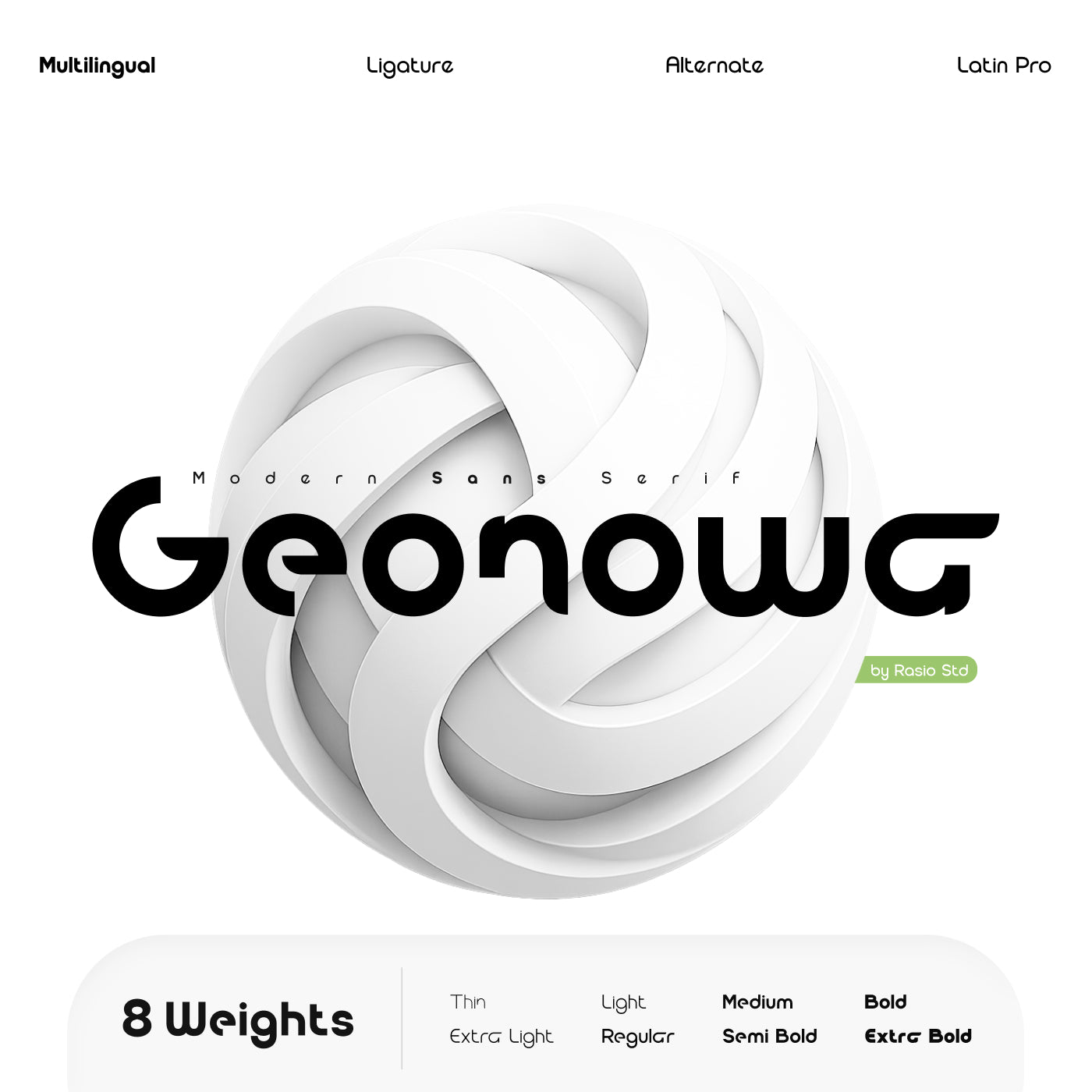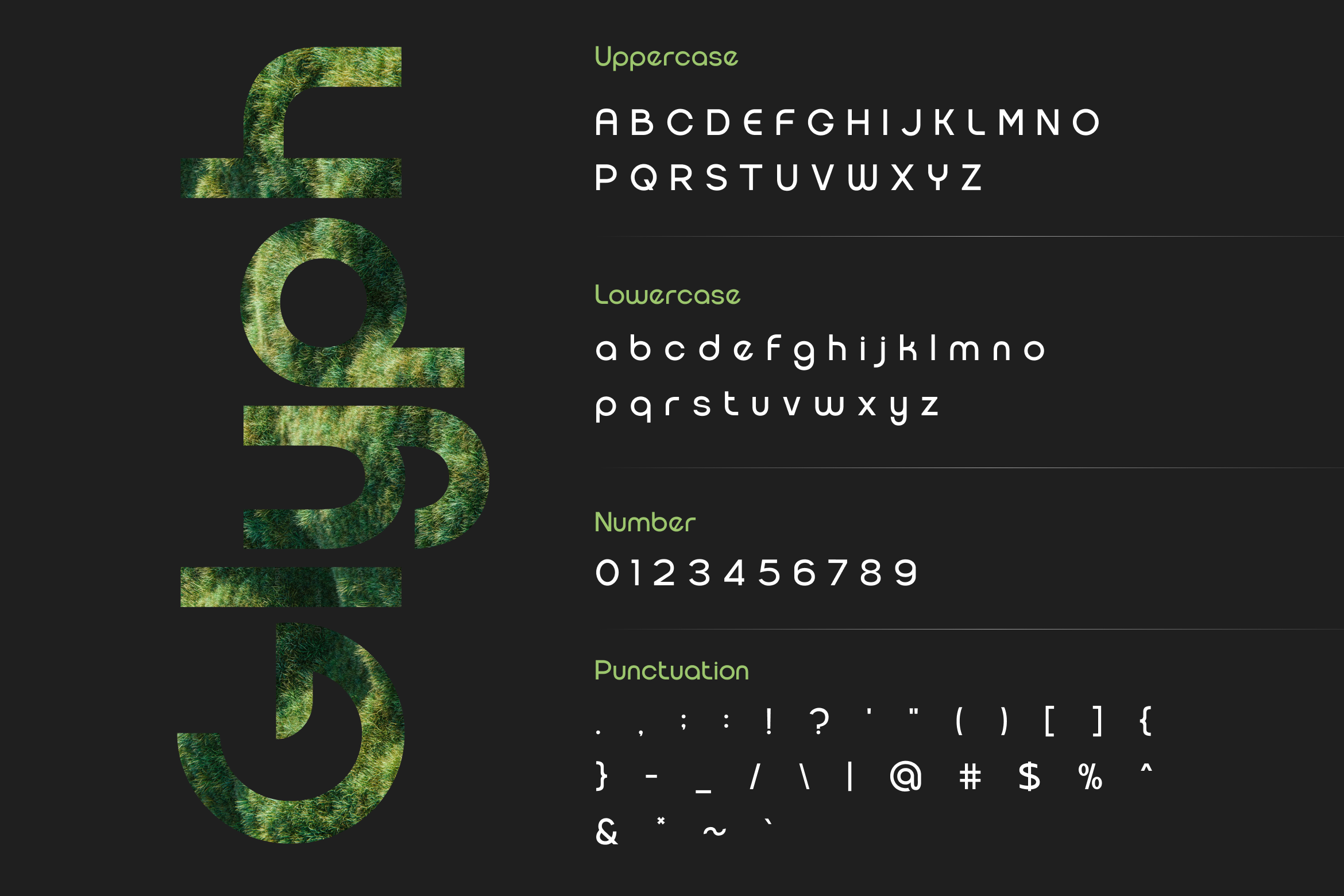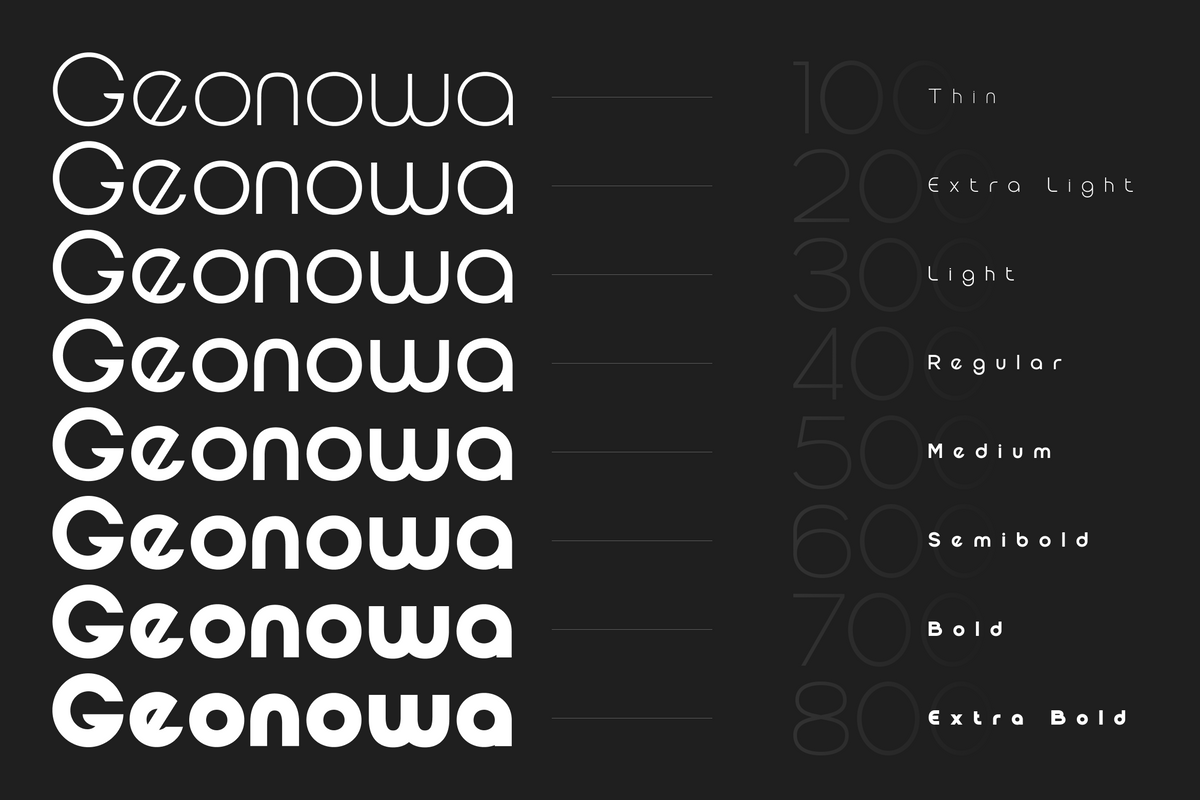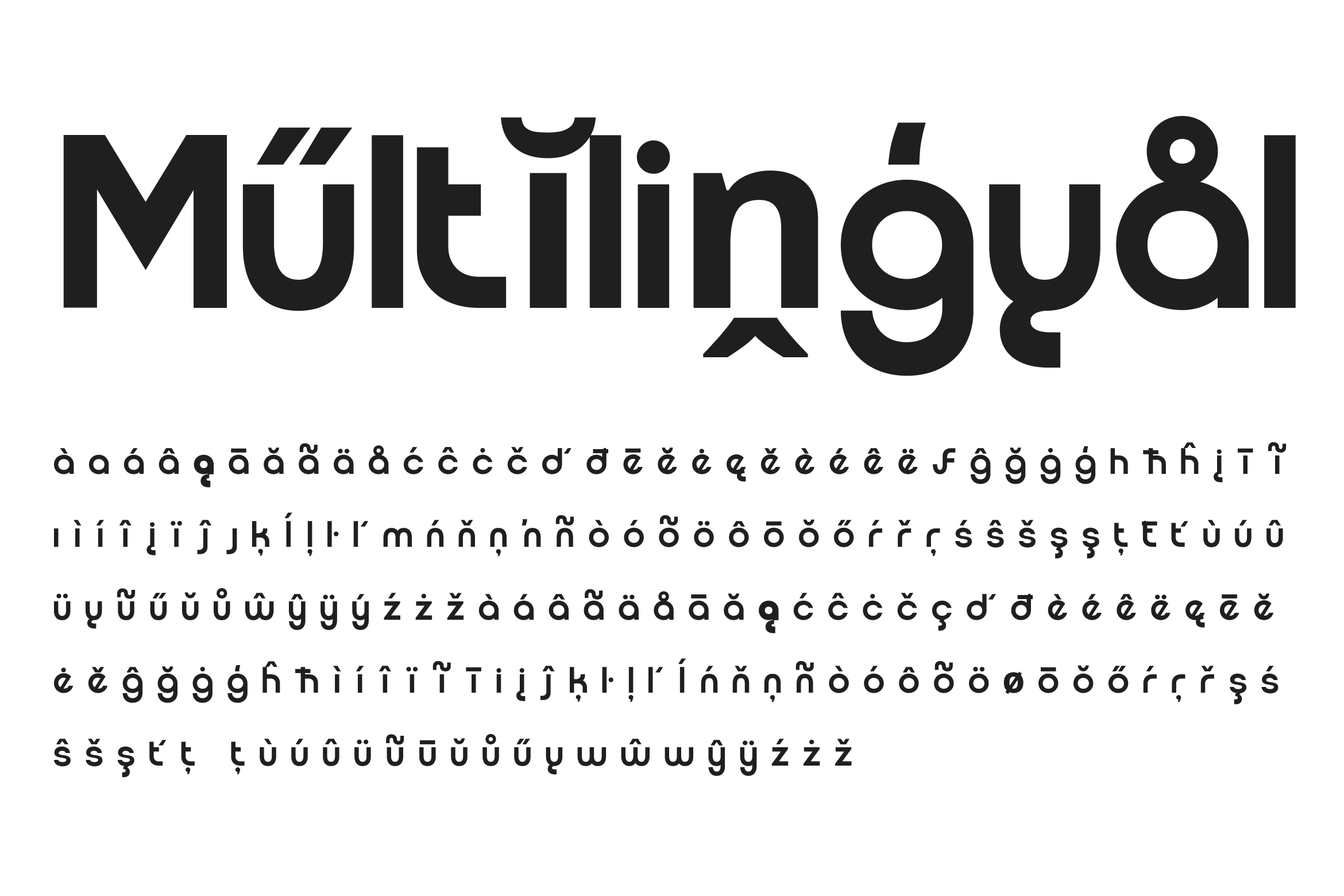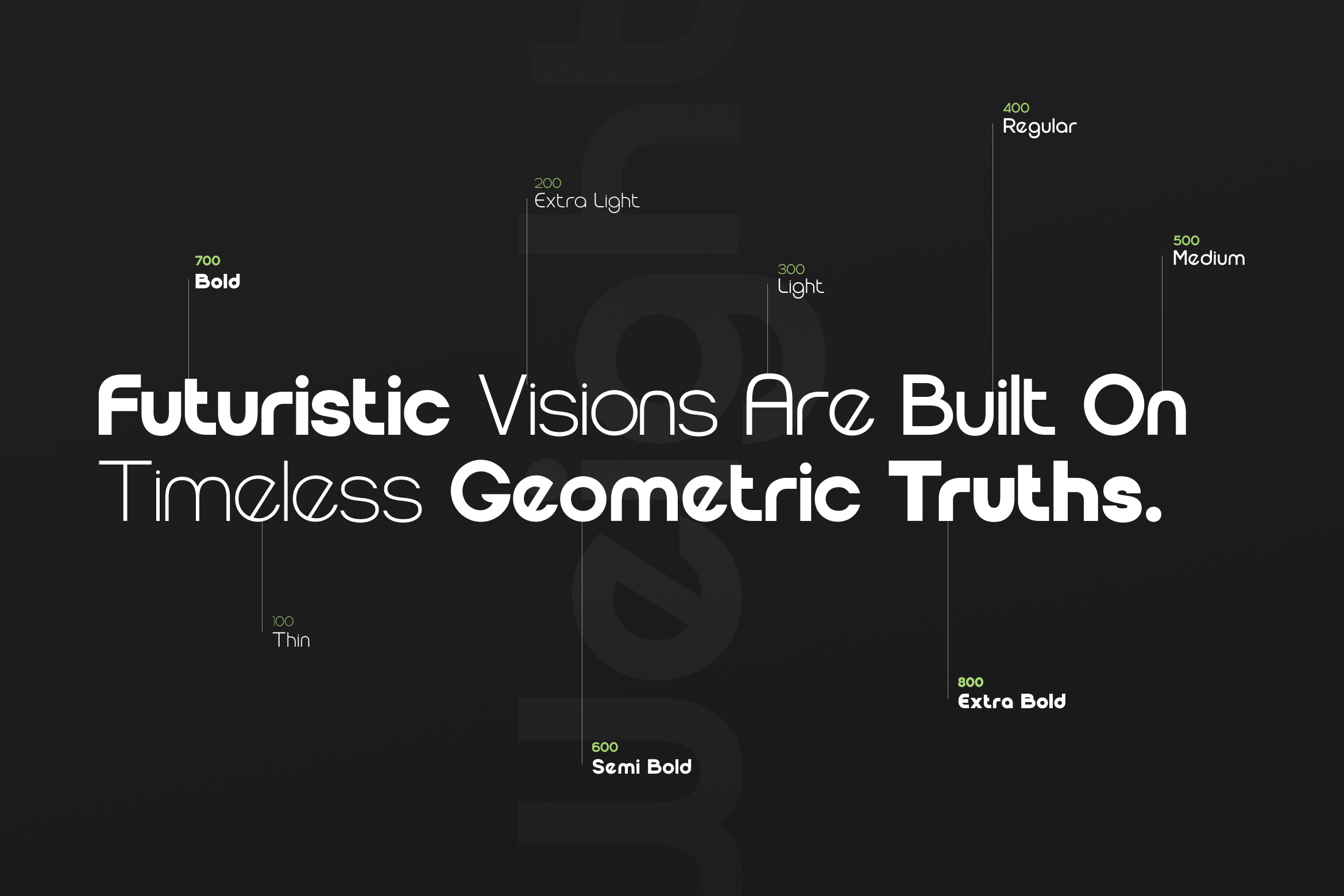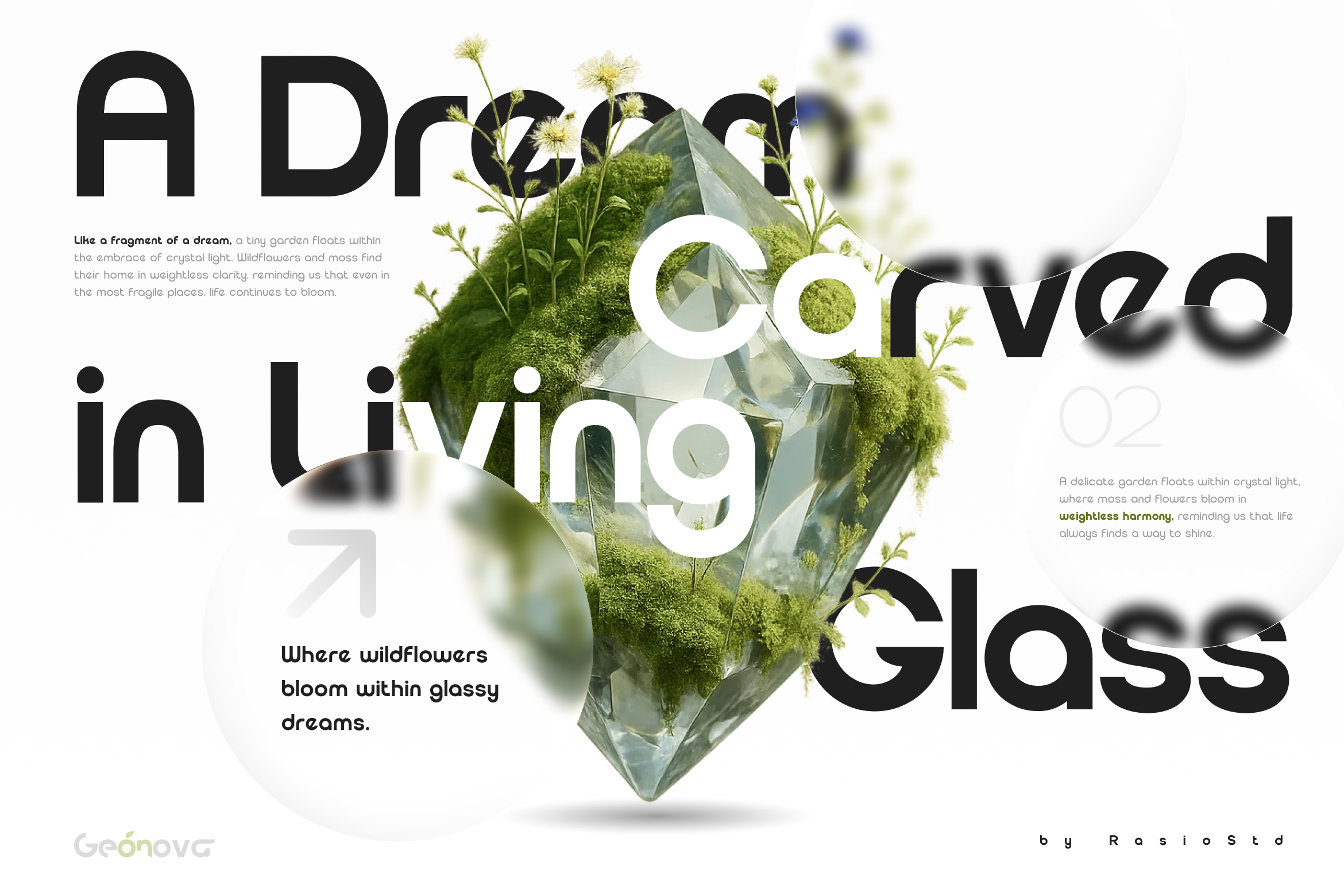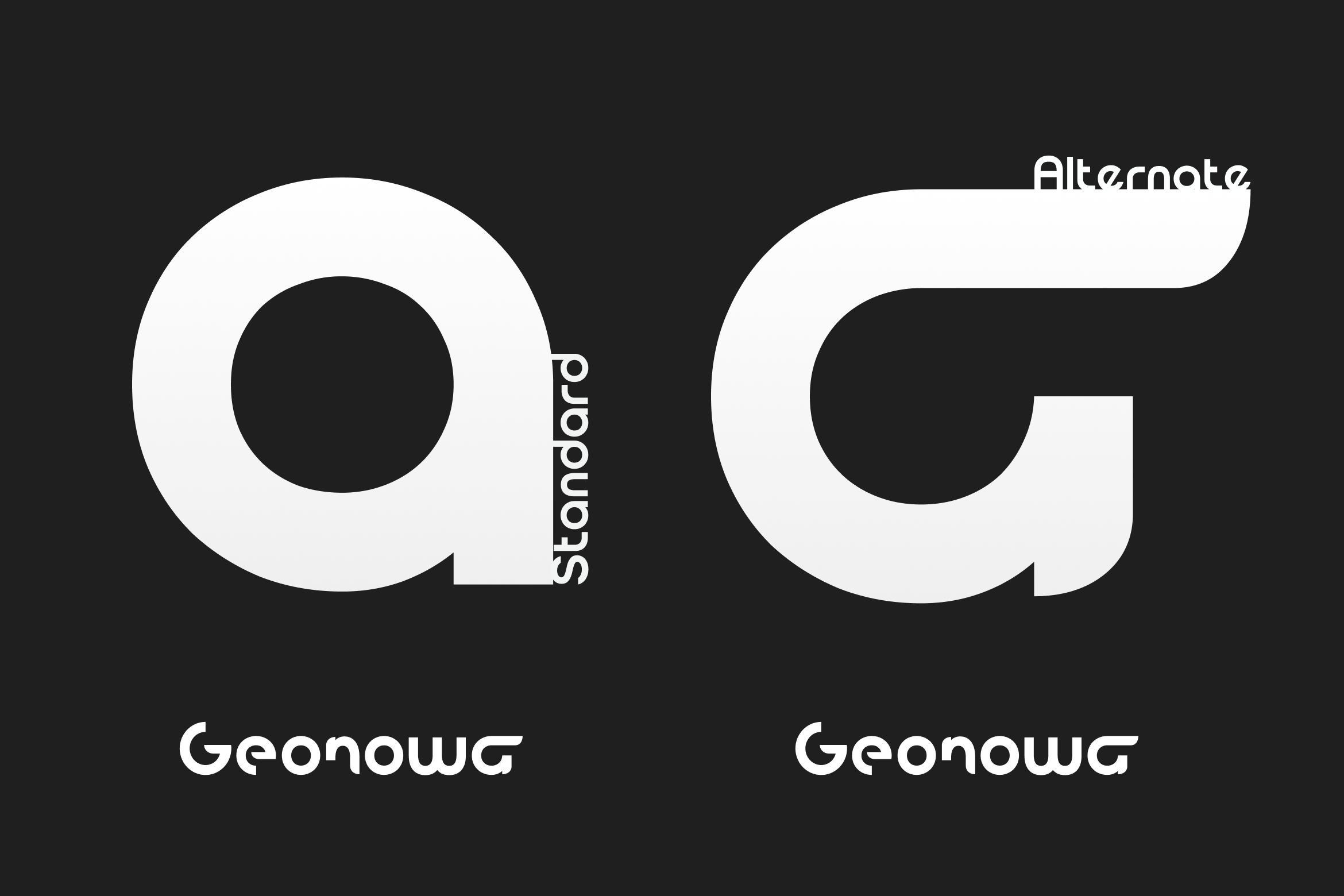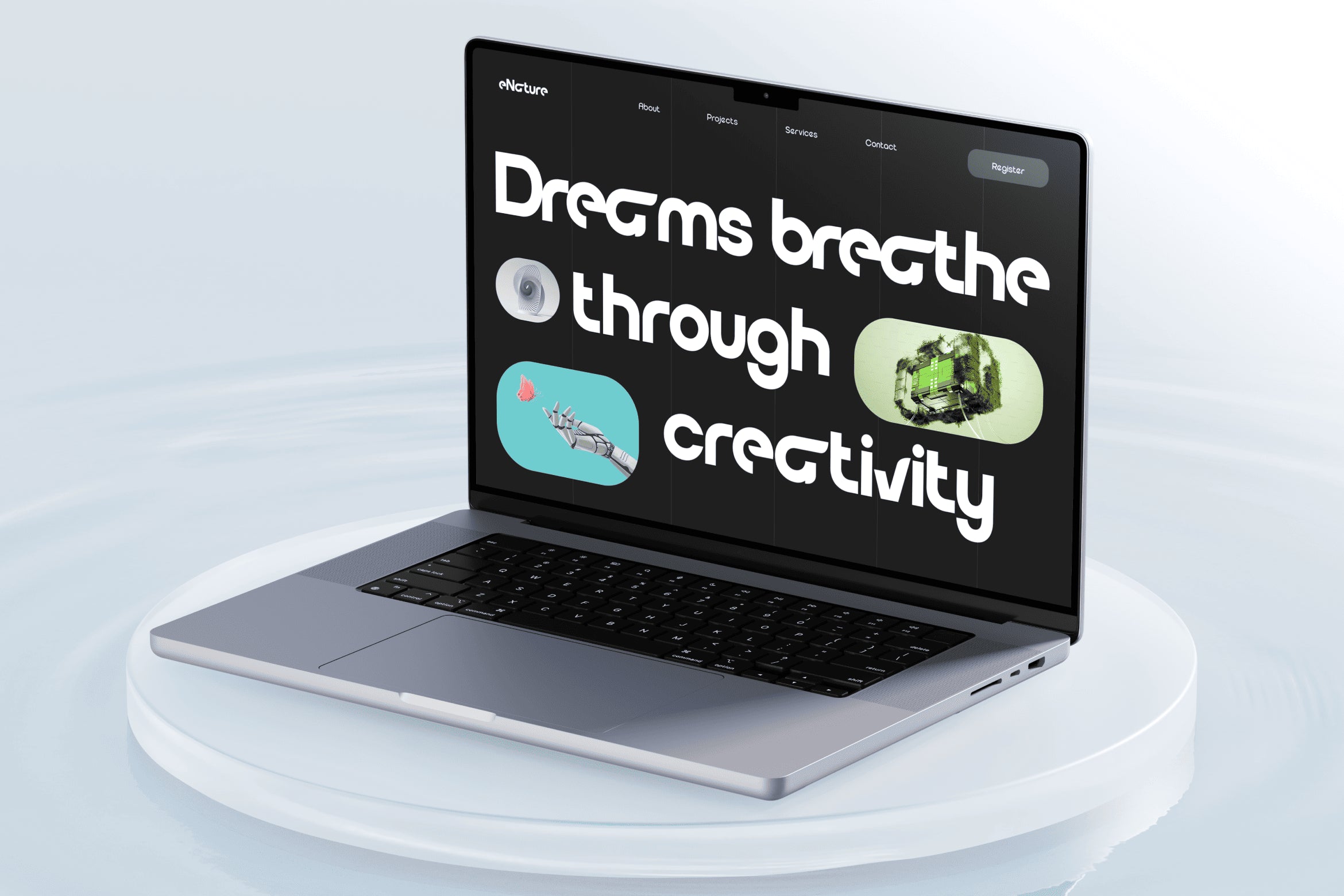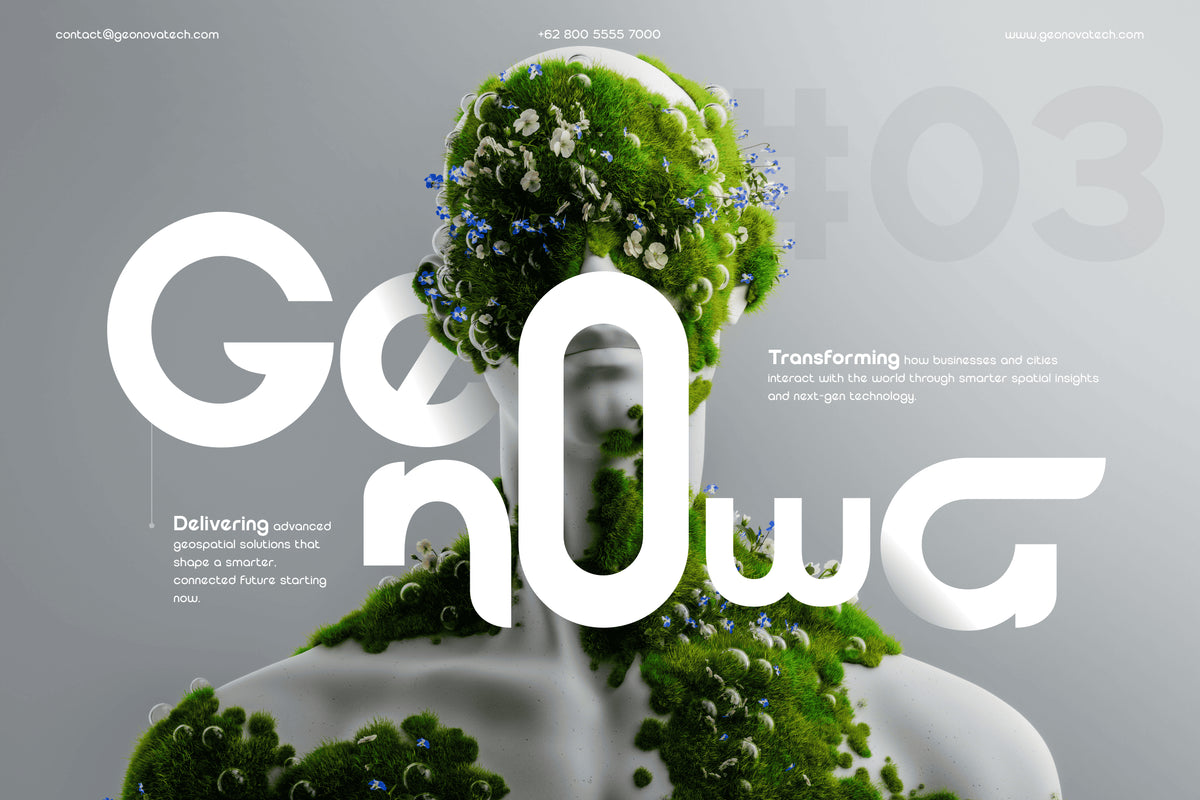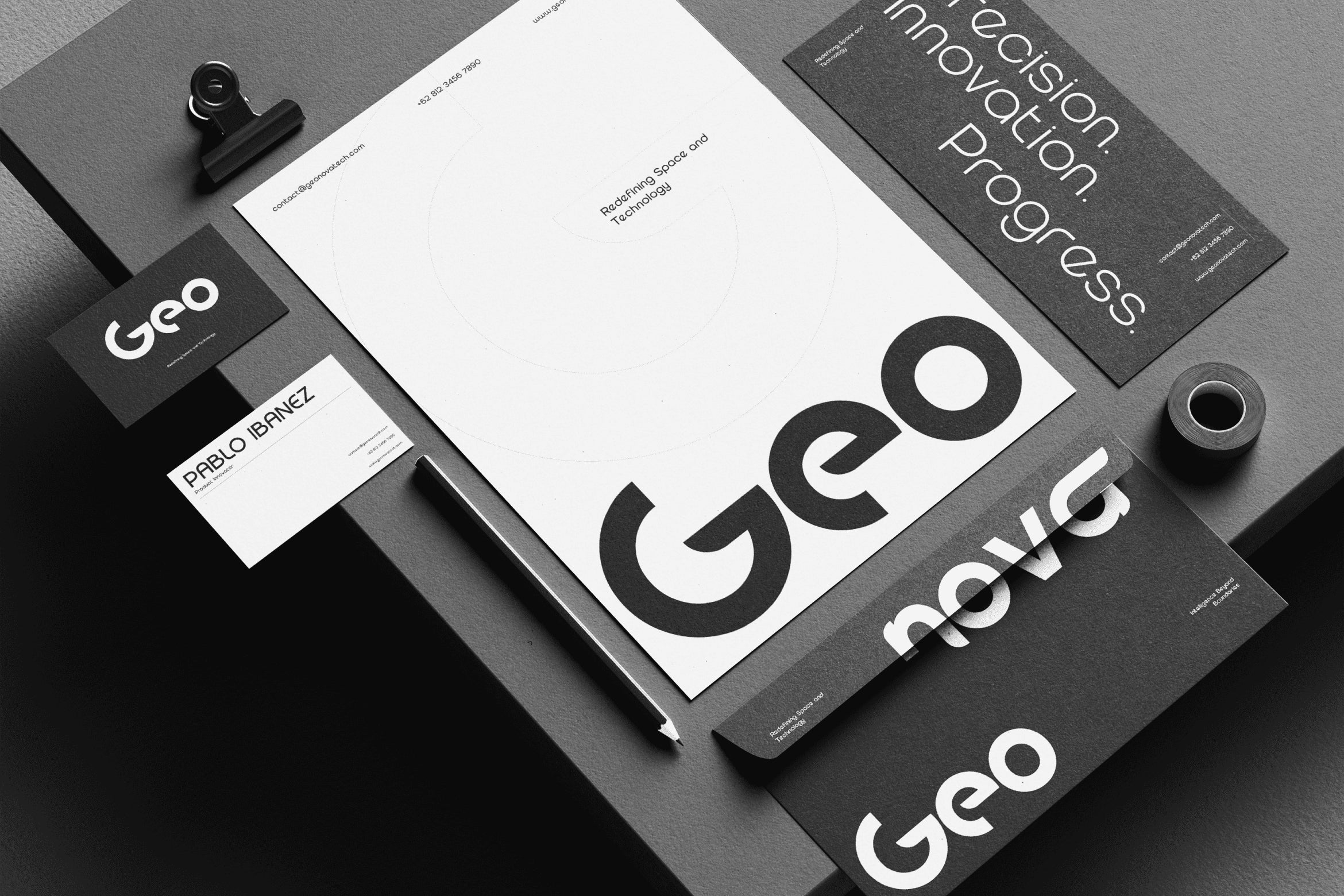
Geonowa Modern Sans Serif Font
Geonowa is a minimal modern sans-serif font designed to bring clarity and elegance to any project. Its clean geometric shapes and smooth curves make it perfect for logo design, UI/UX projects, technology branding, corporate identity, and elegant headings. With 8 versatile weights (from Thin to Extra Bold), Geonova offers maximum flexibility for both display and body text. Its ligature support and Latin Pro multilingual coverage ensure your message stays consistent and professional across languages. Geonova is more than just a typeface it’s a tool for creating classy, futuristic, and professional designs that stand out in a modern world. Whether you are working on a corporate presentation, website interface, startup branding, or tech product design, Geonova delivers a sophisticated yet approachable look.
8 Weights (Thin → Extra Bold)
Ligatures & Alternates for creative flexibility
Multilingual Support (Latin Pro)
Perfect for Logos, Headings, Corporate Branding, UI/UX, Tech & Futuristic Design
Geonowa is a geometric sans-serif font available in 8 weights ranging from Thin to Extra Bold, with ligature and alternate character support. It includes multilingual Latin Pro coverage, uppercase and lowercase letters, numerals, and punctuation, and is provided in TTF, OTF, and WOFF formats.